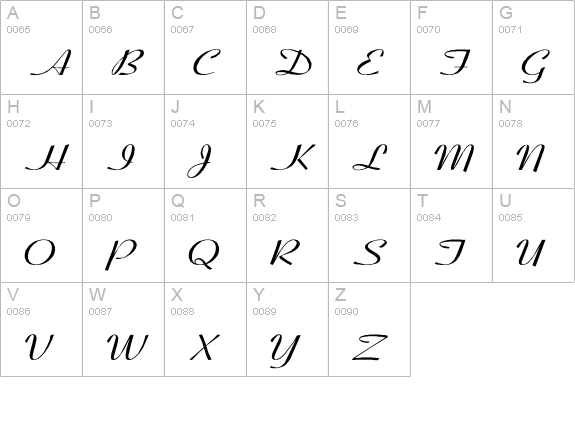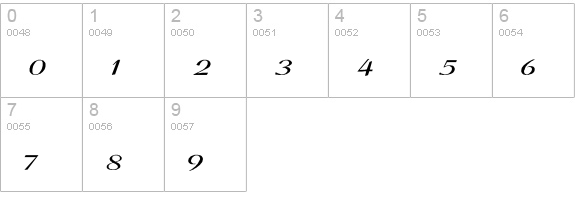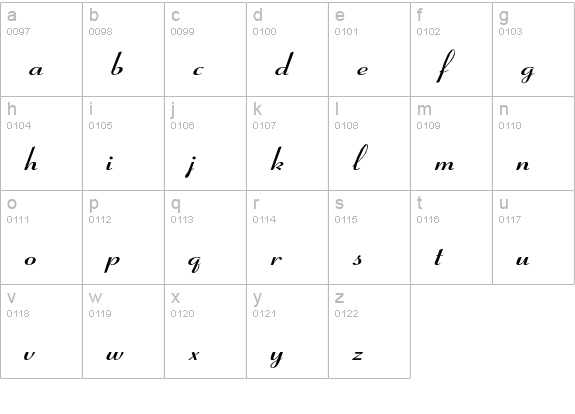
Coronet-SemiBold-Italic Wd Font Details
Coronet-SemiBold-Italic Wd is a sub-bold, structured, italic variant in the Coronet typeface family \xE2\x80\x94 well suited to sub-headlines and emphasised passages.
Coronet-SemiBold-Italic Wd is a sleek and sophisticated font that exudes elegance and professionalism. Its bold and italicized design adds a touch of flair to any project, making it perfect for titles, headers, and branding materials. The font strikes the perfect balance between modernity and classic charm, making it versatile for a wide range of design purposes. What makes Coronet-SemiBold-Italic Wd even more appealing is that it is available for free download at FontsMarket.com. This means that you can easily access this stylish font and incorporate it into your designs without any cost. Whether you're working on a personal project or a professional assignment, Coronet-SemiBold-Italic Wd is a fantastic choice that will elevate your work to the next level.